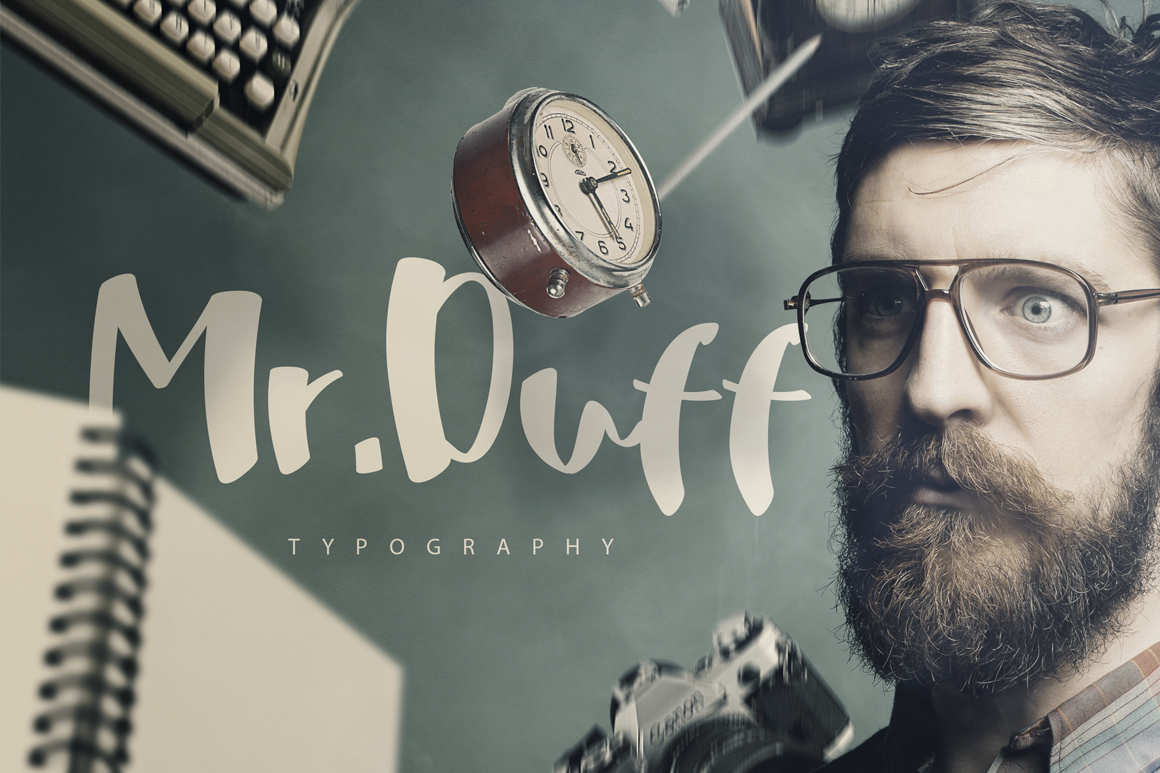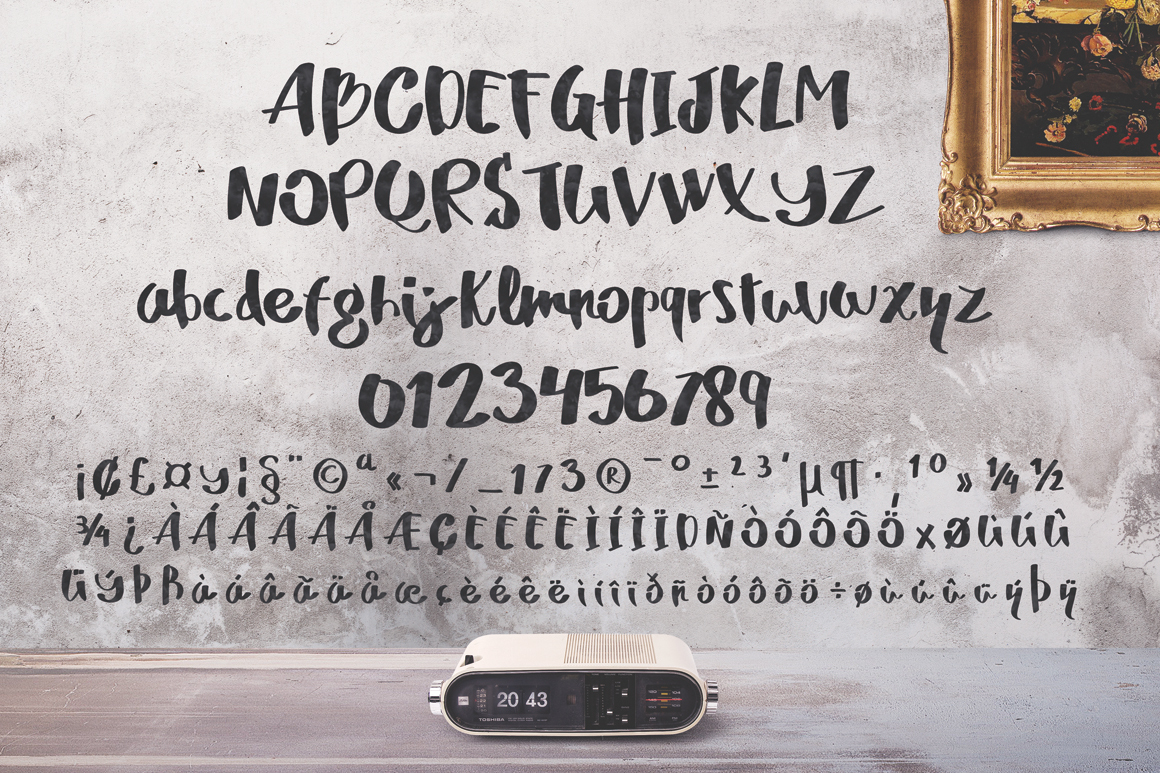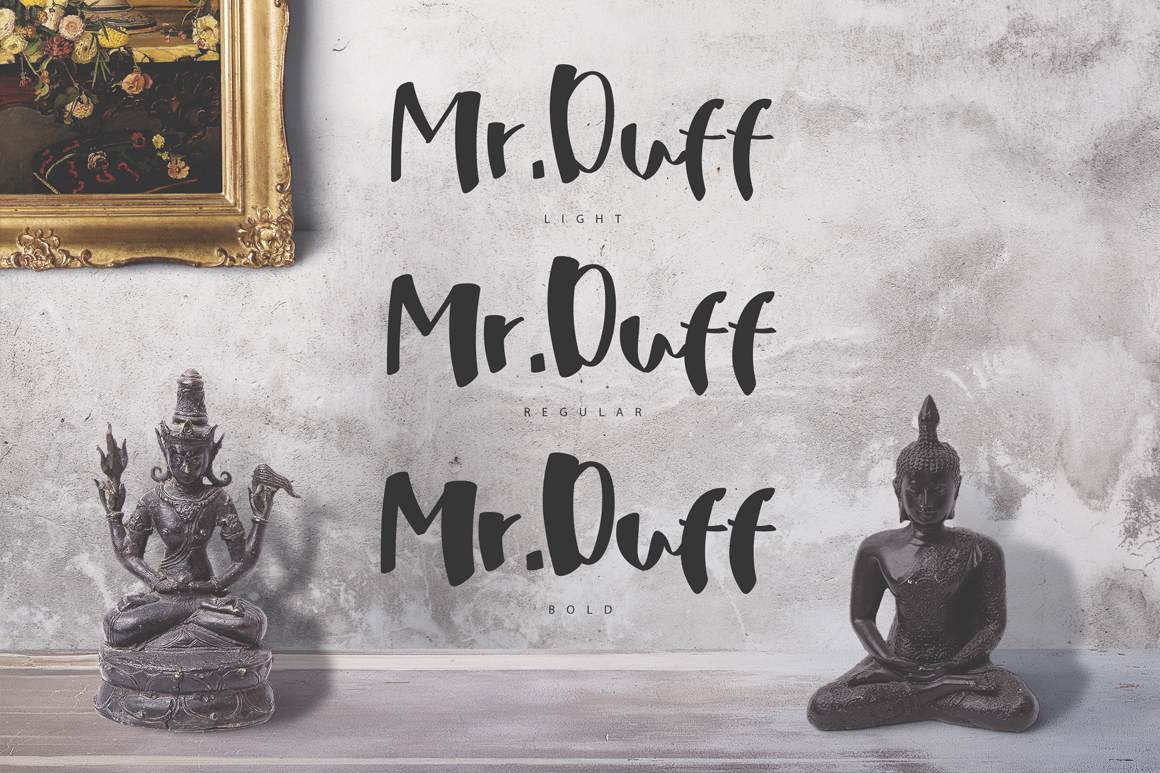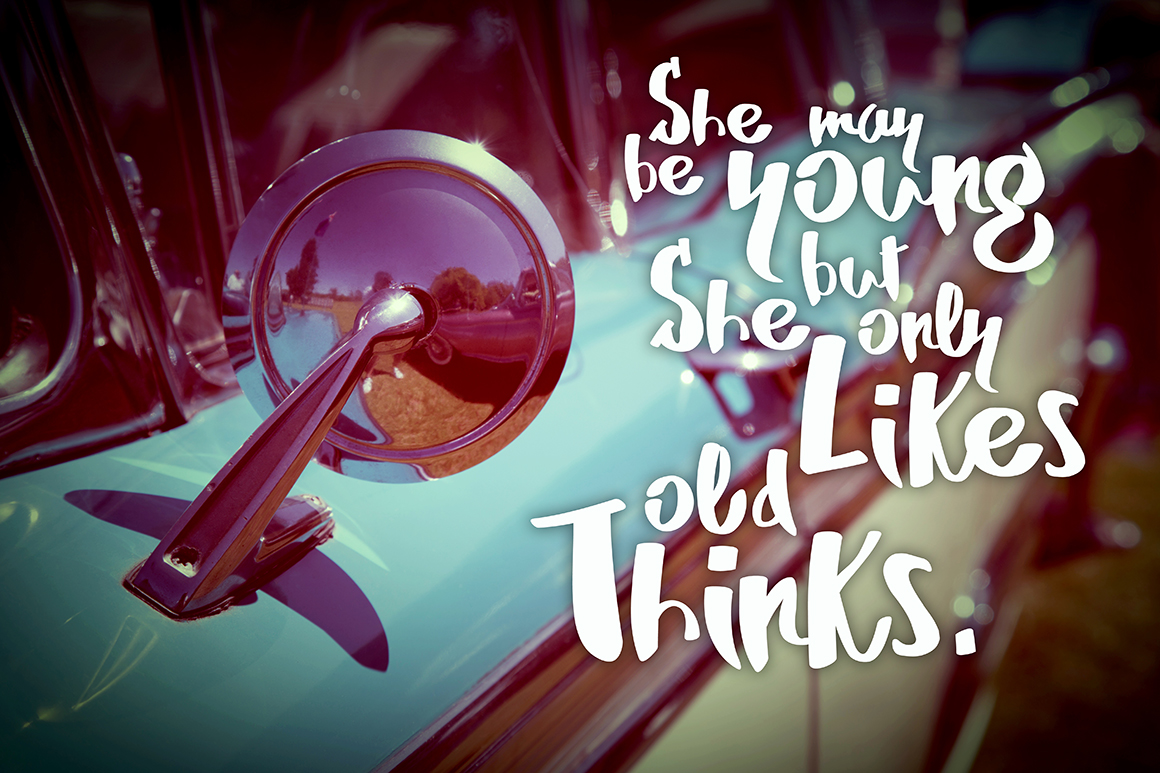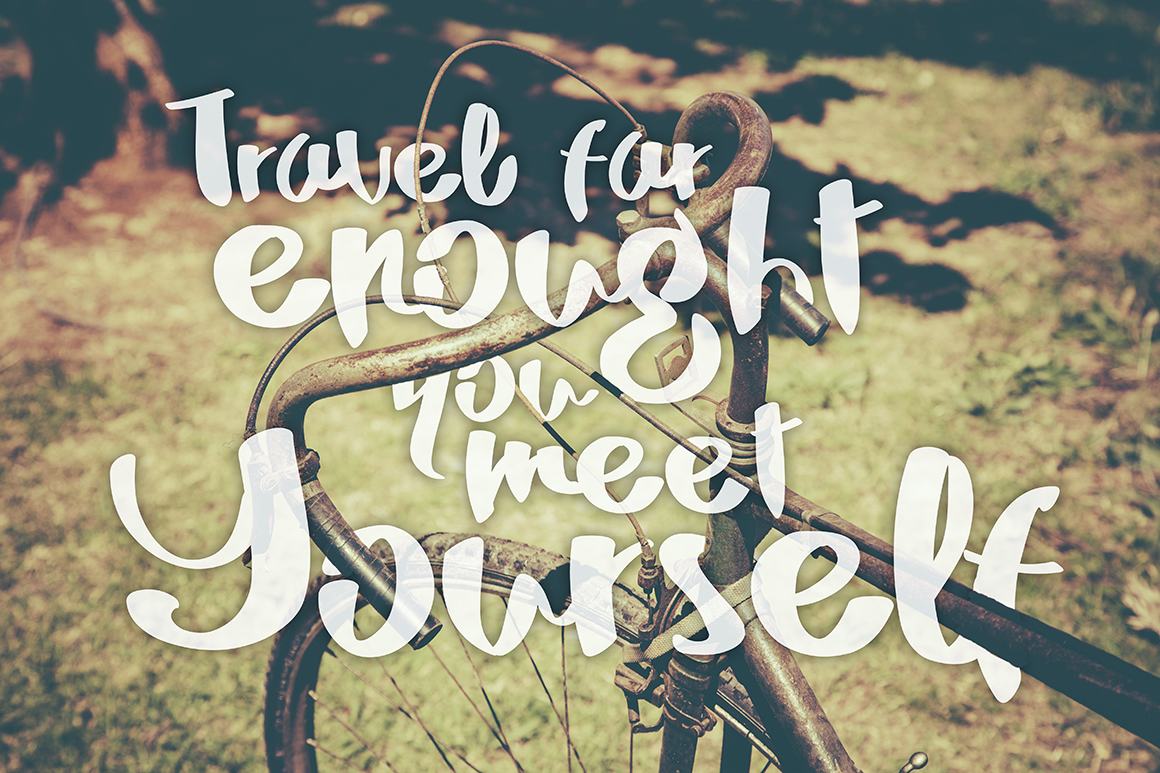
Mr. Duff Font
About Mr. Duff Font
Mr. Duff is a playful and smooth script font.
The smooth digitally created letters have the look and feel like they are painted with a thick brush. The lines are smoothed so the font feels very slick and would look great in many types of projects.
Mr. Duff comes in 3 variations:
Mr. Duff Regular
Mr. Duff Bold
Mr. Duff Light